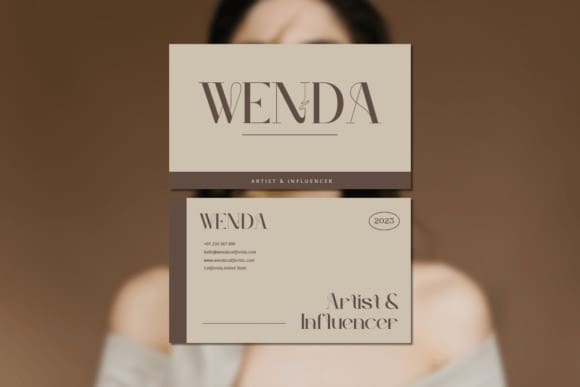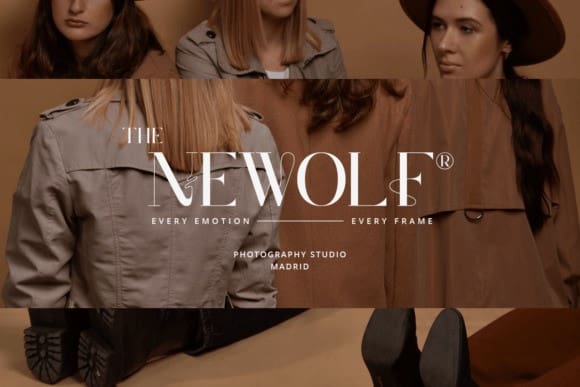
Giliant Font
Giliant Font is a Modern elegant serif typeface with Unique alternative, multilingual support with perfect kerning. This typeface is perfect for an elegant & luxury logo, classy editorial design, women’s magazine, fashion brand, cosmetic brand, fashion promotion, modern advertising design, invitation card, art quote, home decoration, book/cover titles, special events, Tote bag, T-shirt, Advertising and much more.